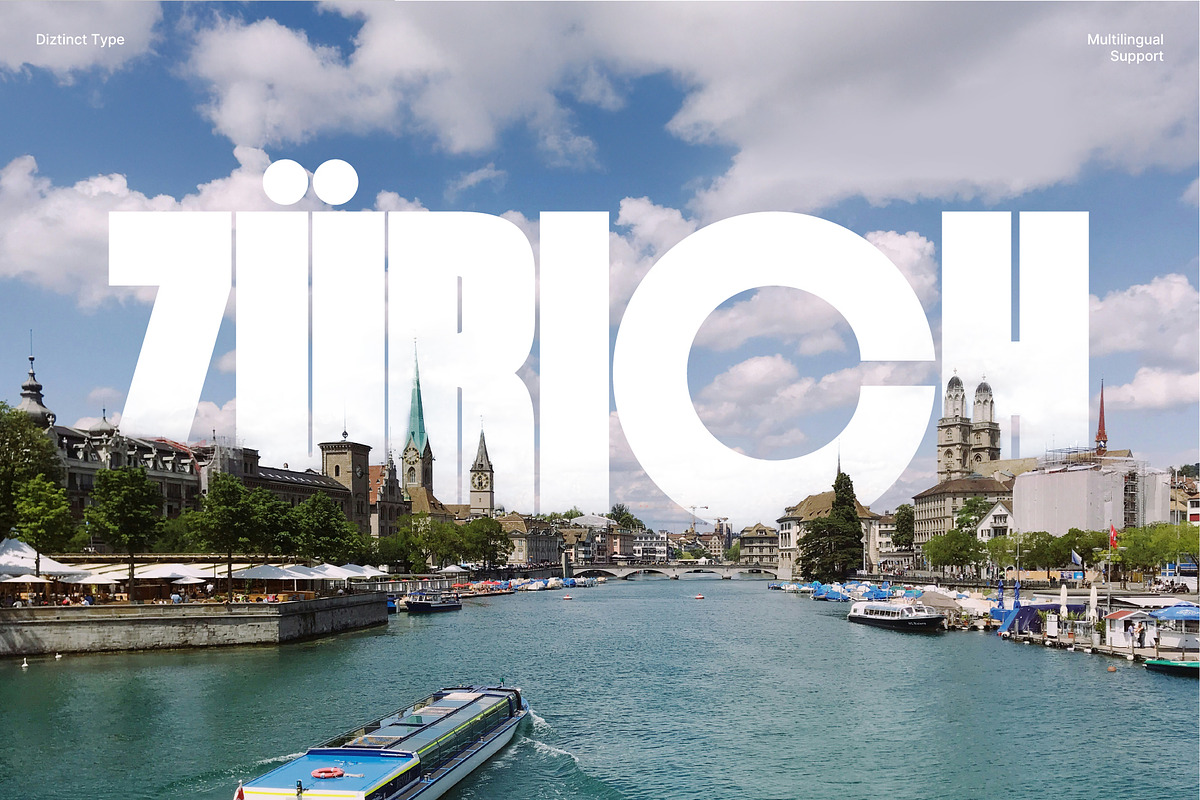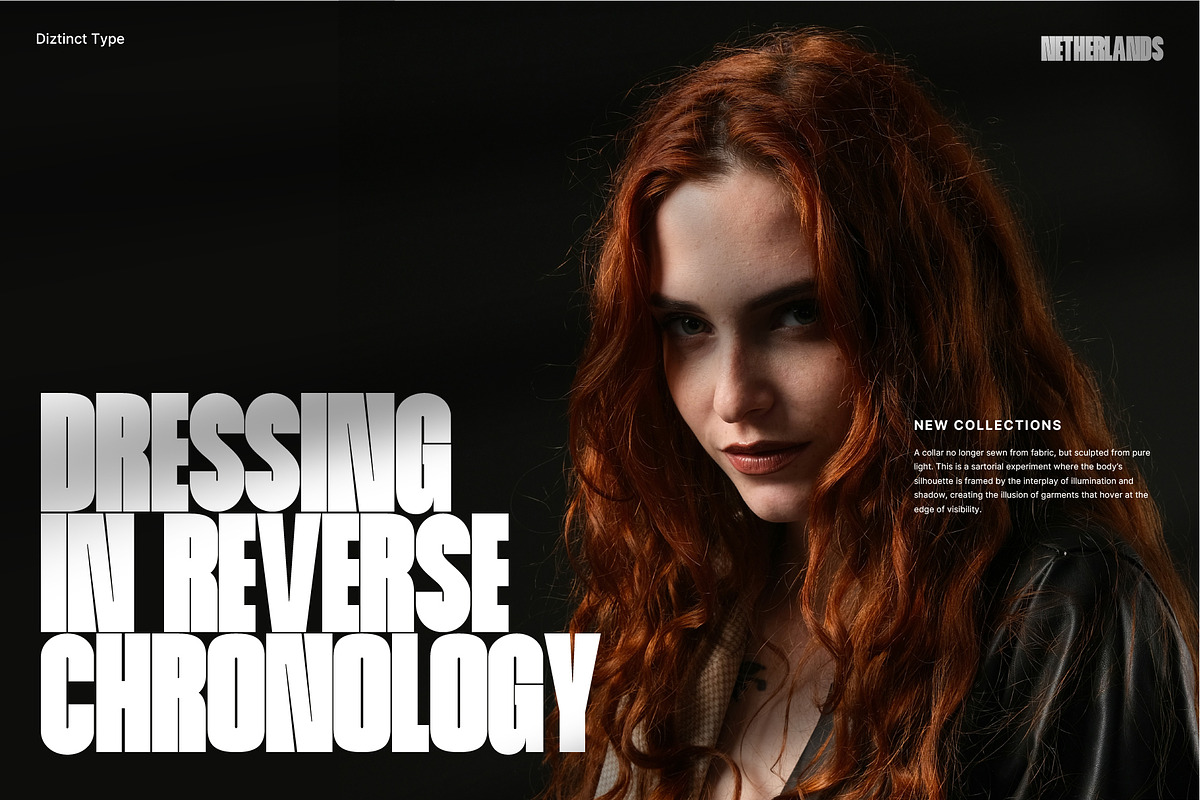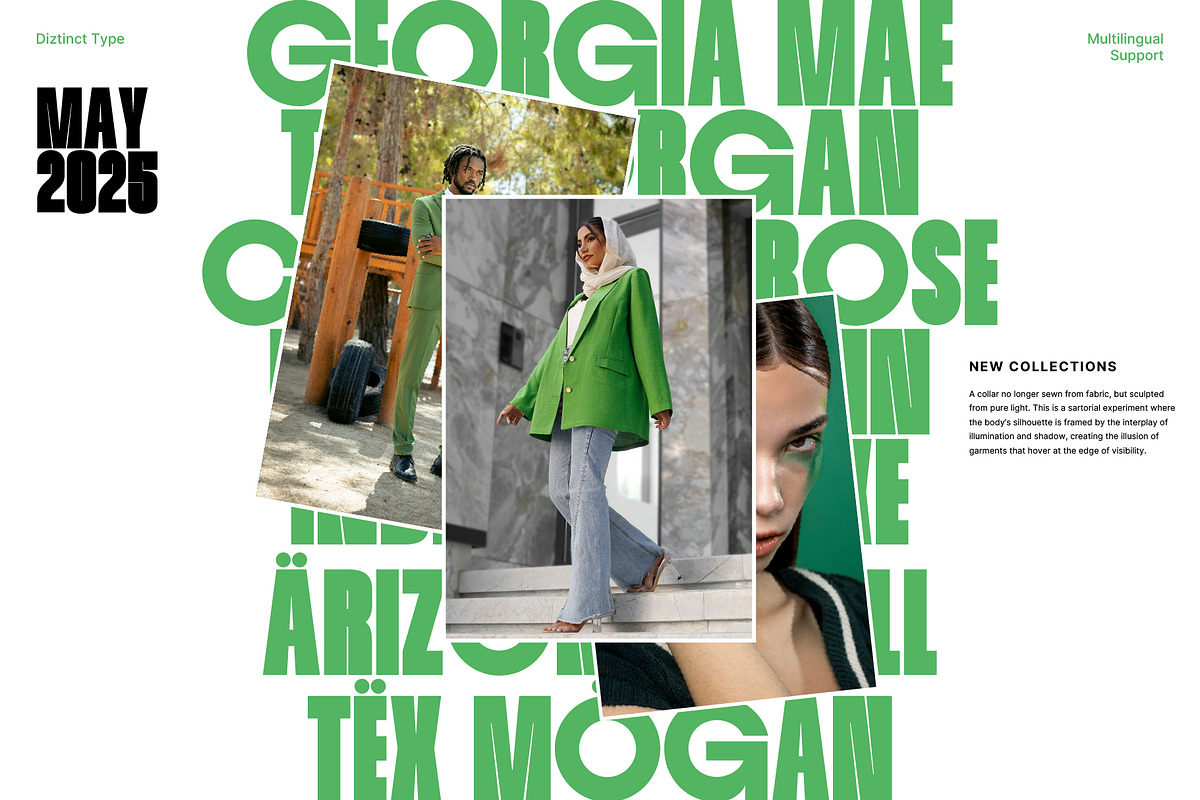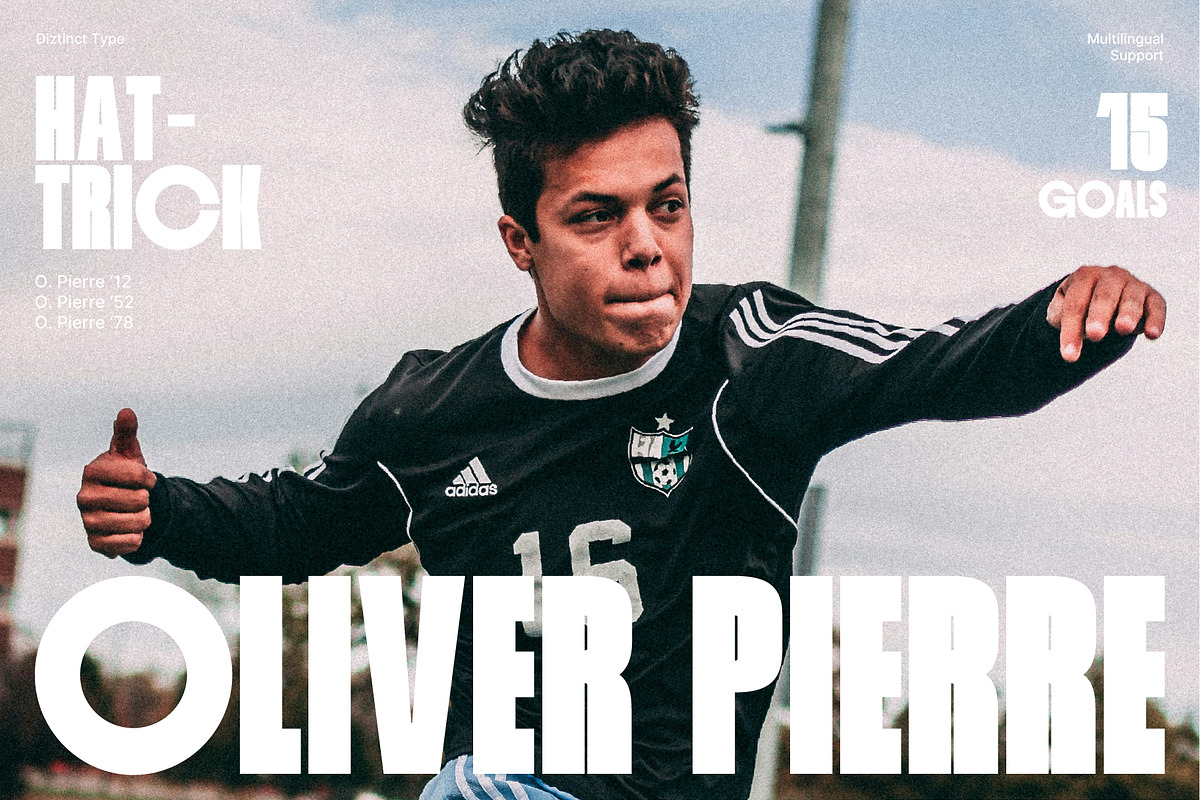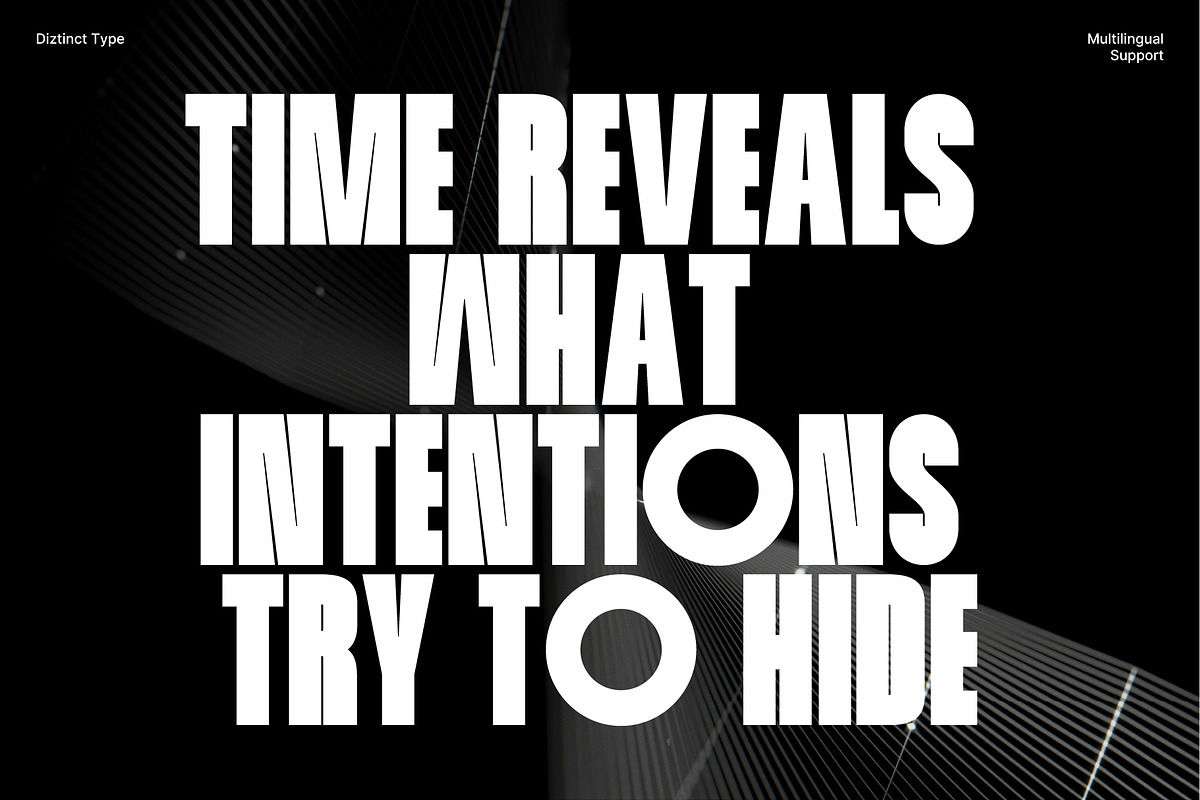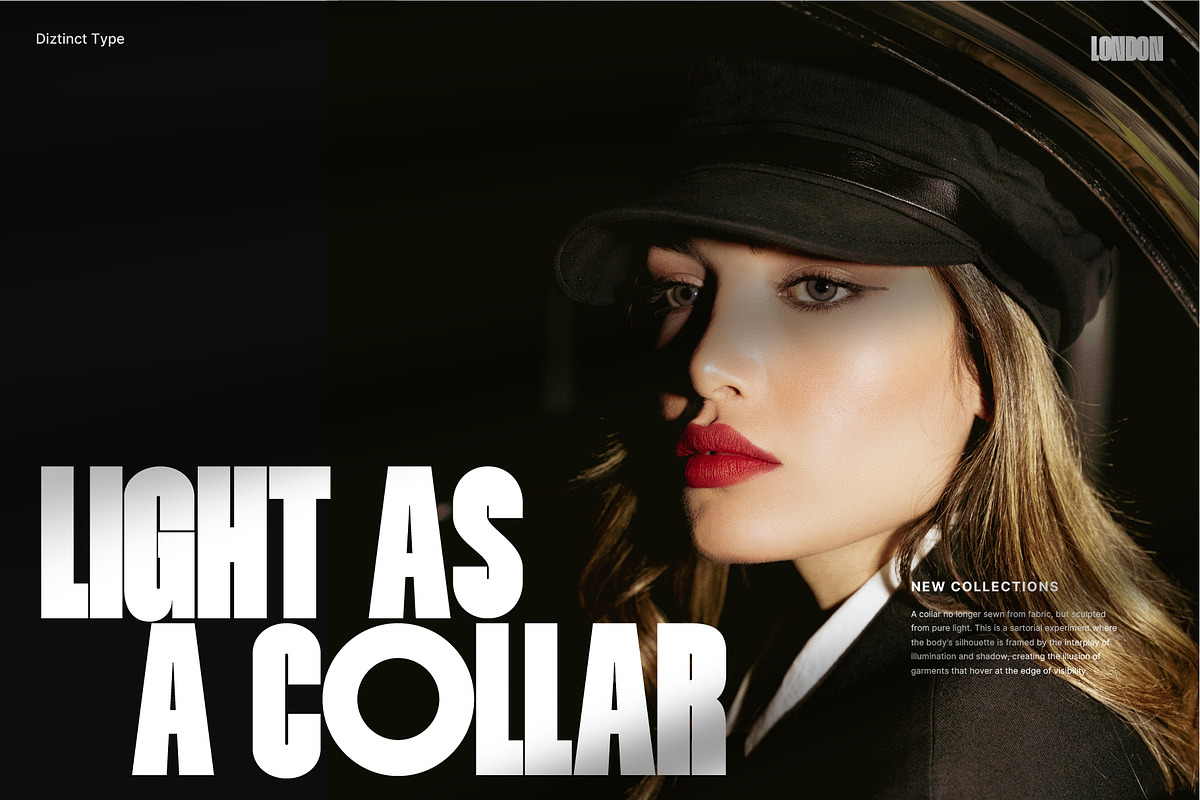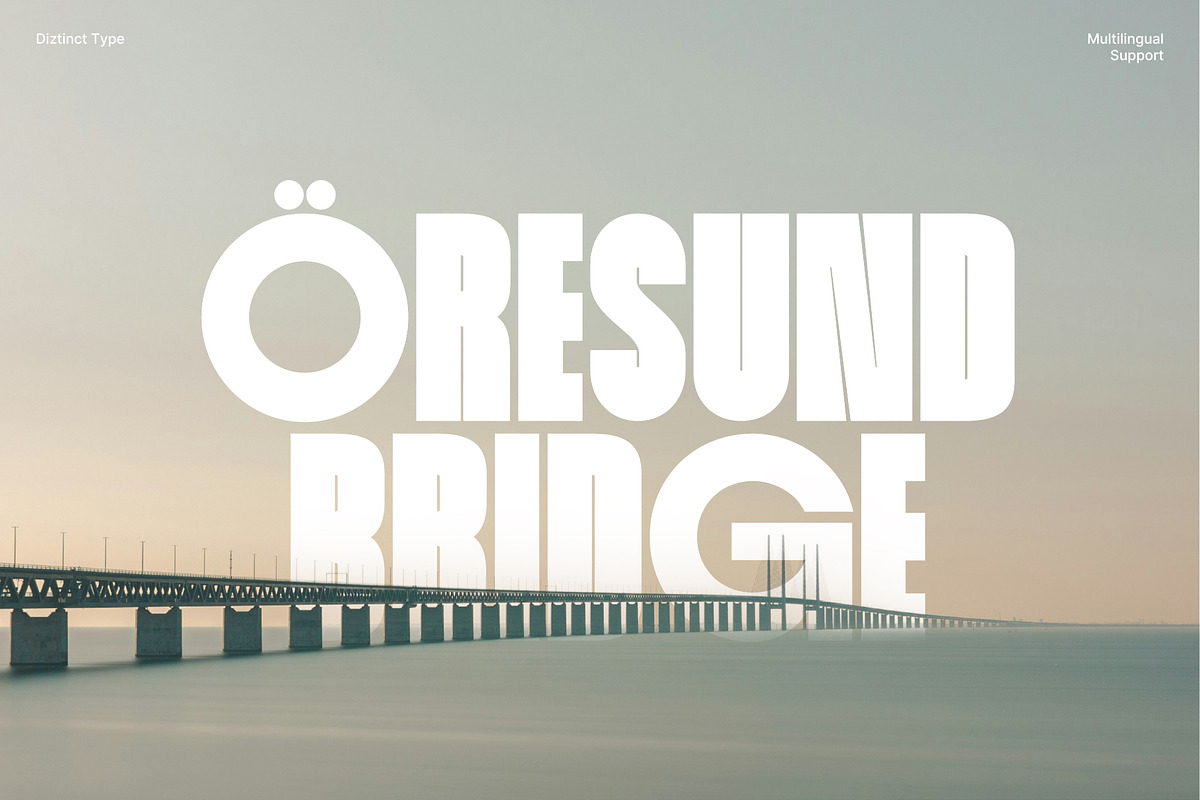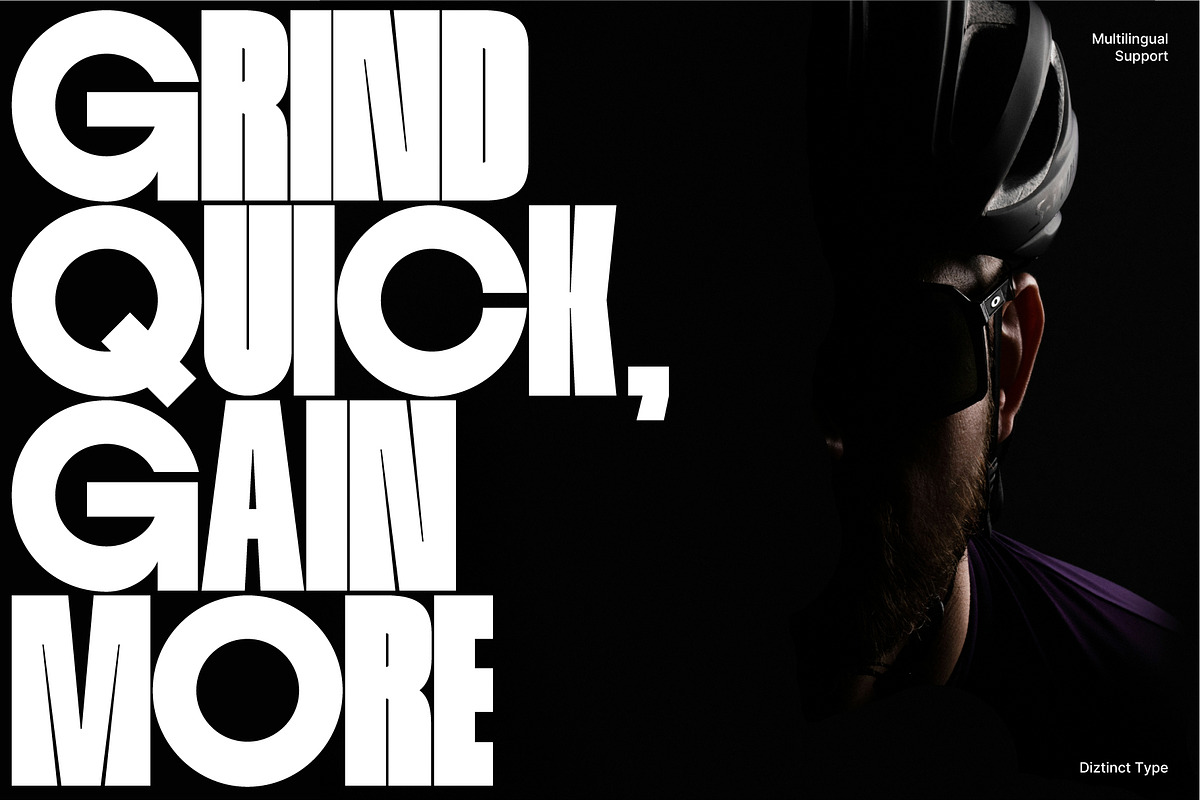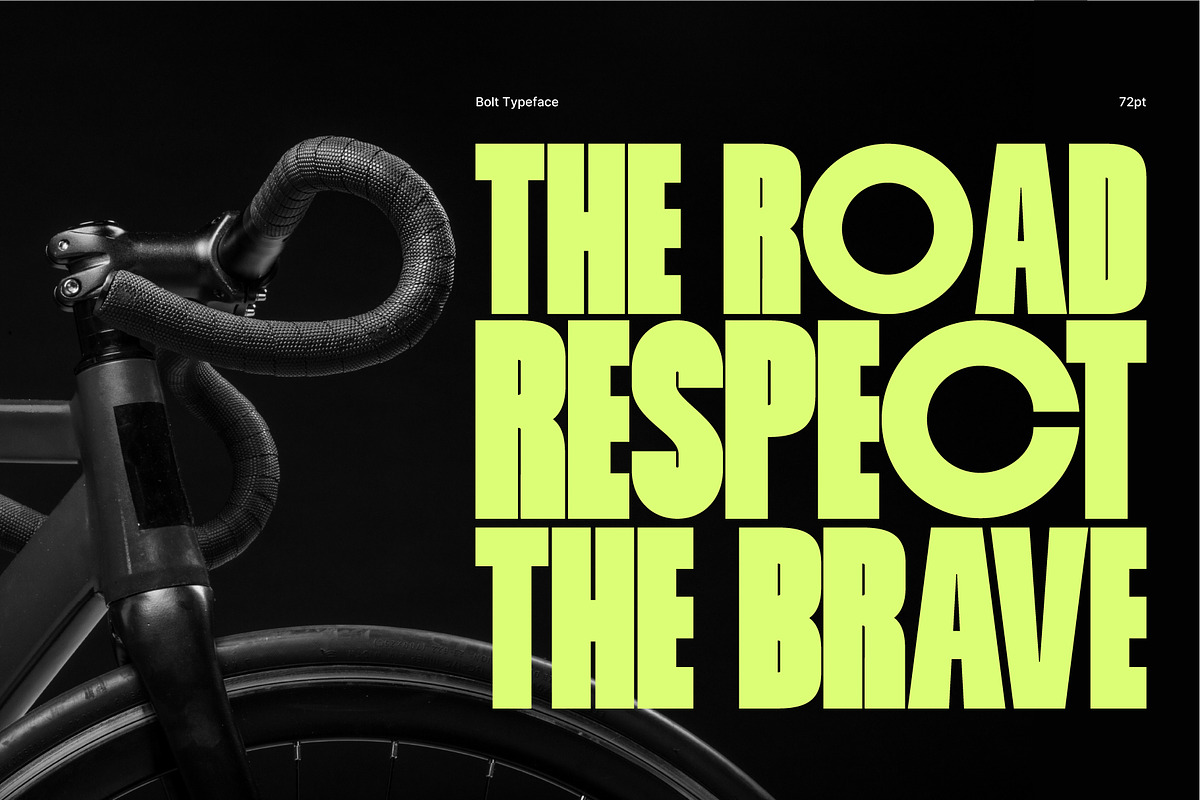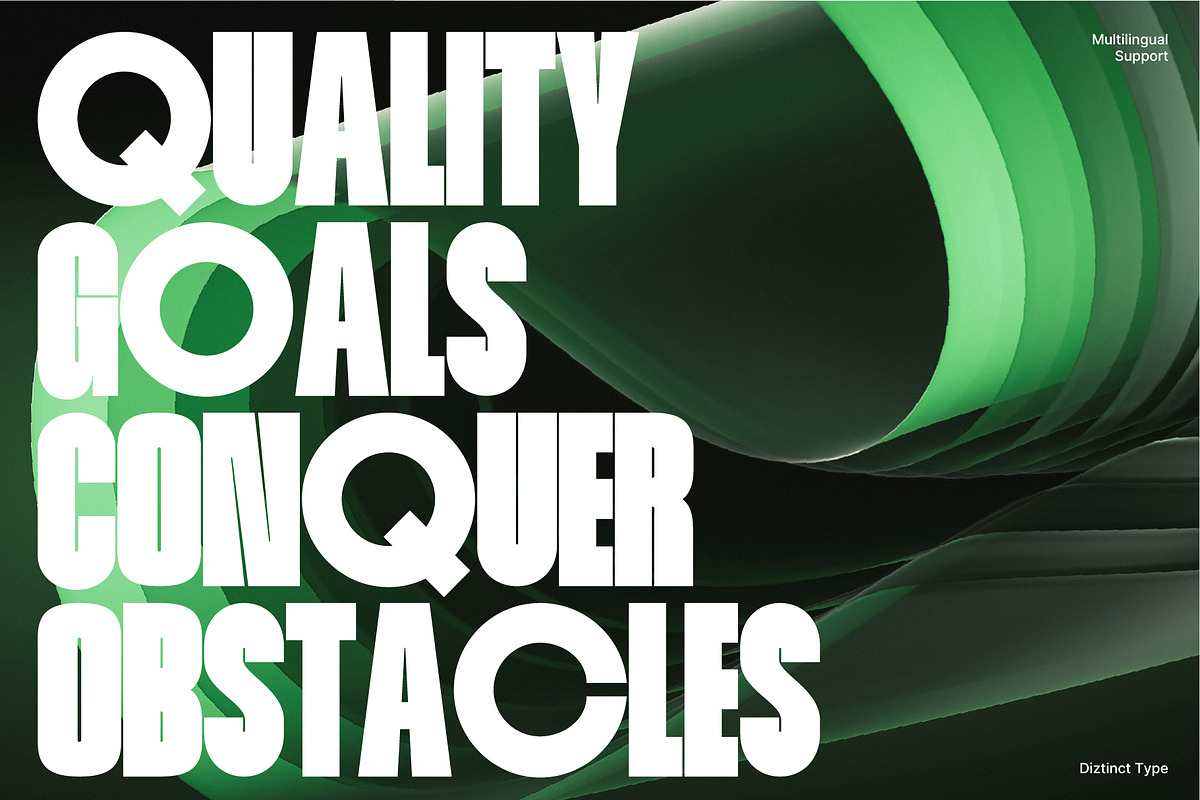
Bolt Sans Serif
Bolt Typeface – Powerful and Precise Design
Introducing Bolt, a contemporary typeface crafted to make a bold statement with its clean, modern lines and striking presence. Combining geometric precision with a distinctive edge, Bolt is designed for high-impact projects where clarity and strength are key.
The typeface’s solid structure and refined proportions make it perfect for creating attention-grabbing logos, advertisements, and editorial designs. Its carefully balanced weight ensures legibility at both large and small sizes, while its dynamic personality adds a sense of energy to any design. Whether you’re shaping a brand identity, designing promotional materials, or developing digital content, Bolt offers the perfect foundation for projects that demand both strength and sophistication.
- Alternates for unique typographic options
- Multilingual support (Western, Central & Eastern European languages)
Ideal for: Powerful brand identities
- Bold advertising campaigns
- Dynamic editorial layouts
- Sleek digital interfaces
- Modern product packaging
With Bolt, create impactful designs that leave a lasting impression.